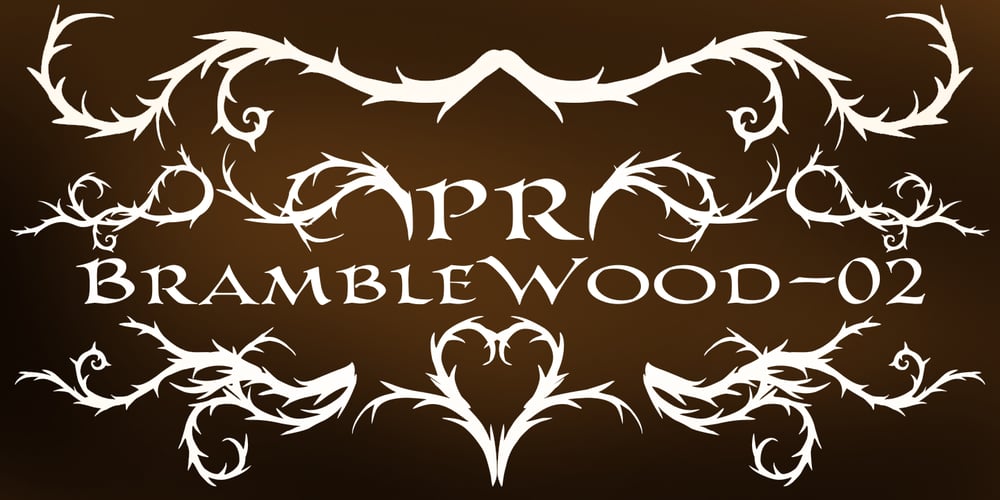
PR Bramble Wood 2 Font Family was designed by Peter Rempel and published by PR Fonts. PR Bramble Wood 2 contains 1 styles and family package options. This font is a collection of spiraling vines with thorns. This set is heavier than BrambleWood 1, more like the thorns that encased Sleeping Beauty’s castle. Adjacent letters will provide left and right versions of the same design, and shift will access the inverted version. Combines well with: PR Bramble Wood 1, PR Hallow Doodles 01, PR Hallow Doodles 02, PR Cauldron, PR Swirlies 01, PR Swirlies 05.